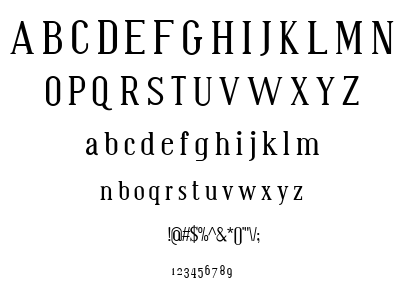
Bistecca is a condensed serif font.Highly readeable, it was created for headlines, captions and stylish text blocks.For commercial licence please visit our site.